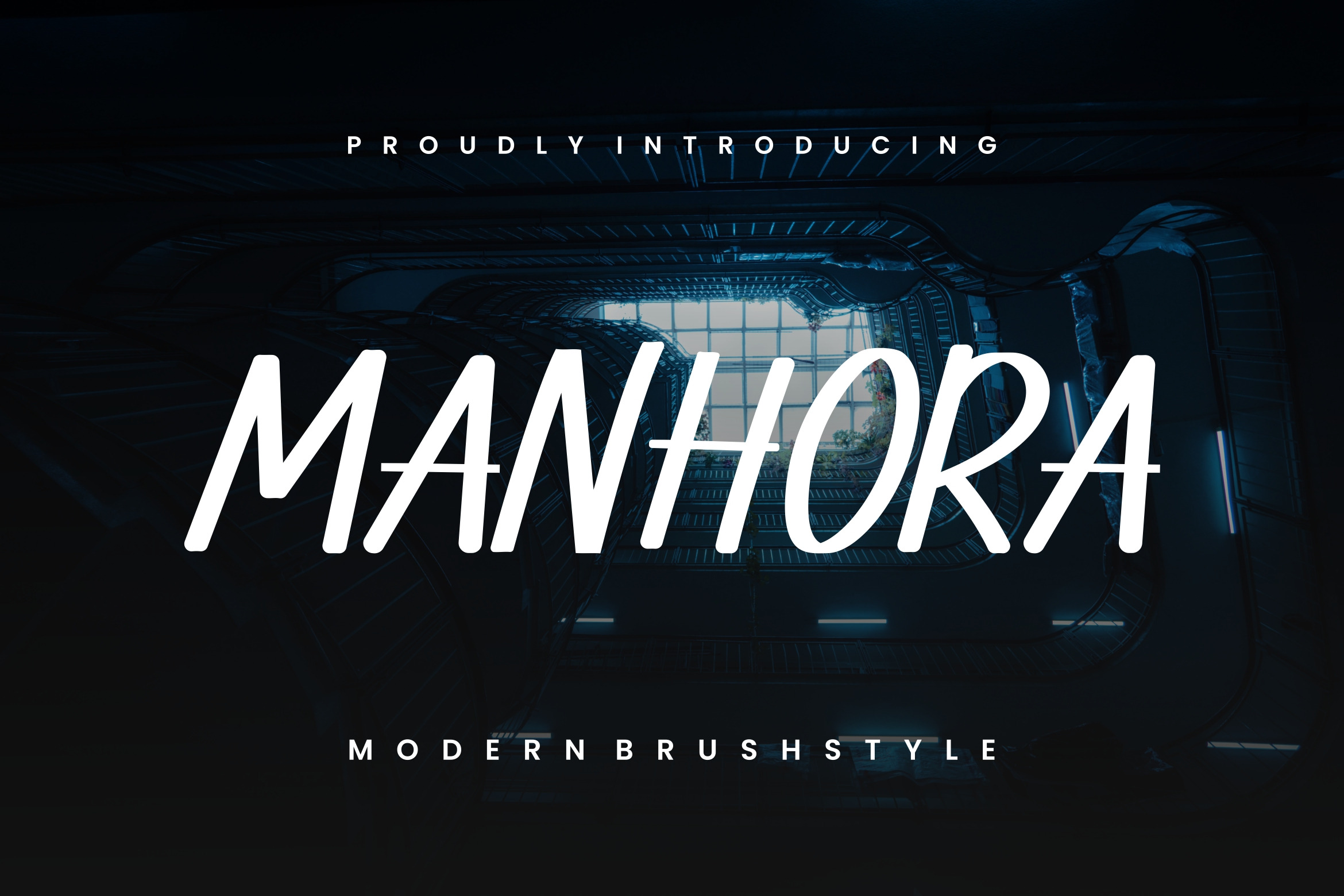
Manhora Modern Brush Font Style.
Manhora Modern Brush Font Style– related to travel, history & culture in the present/modern way,lifestyle designs such as logos, title, magazine, and more.